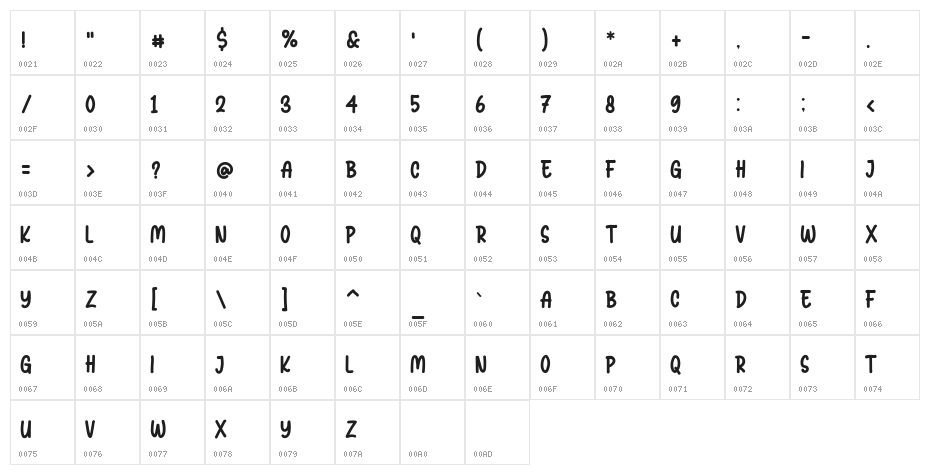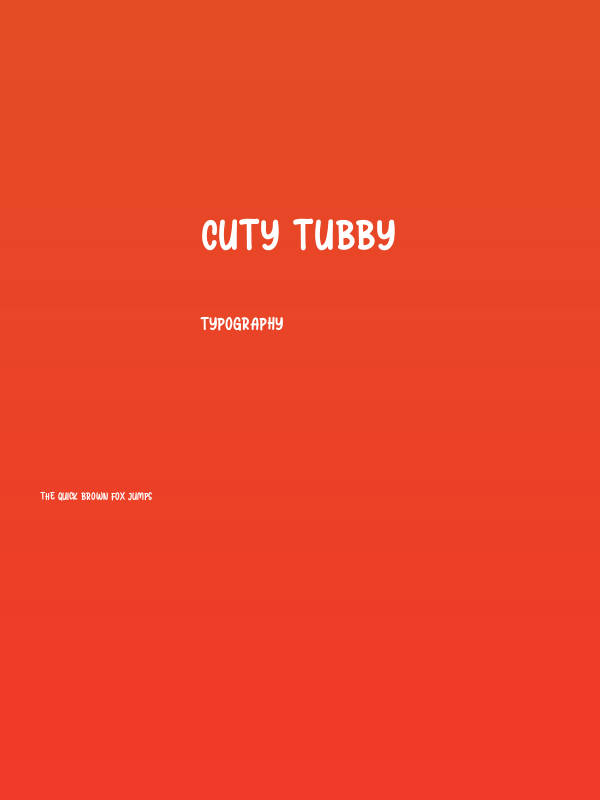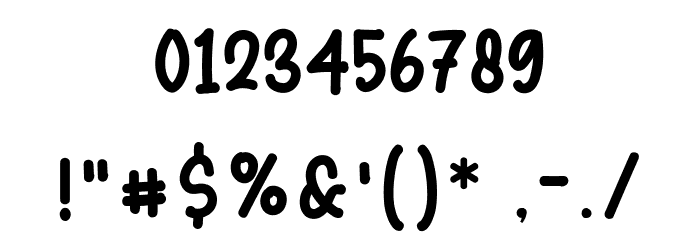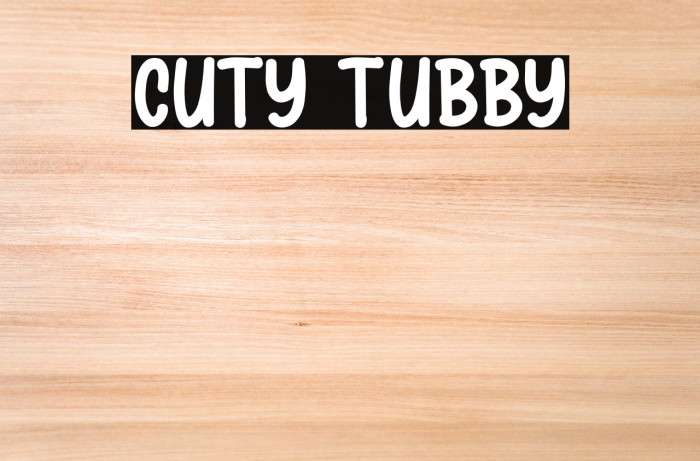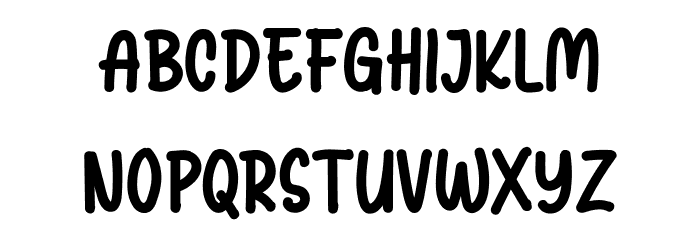
Cuty Tubby Font
Cuty Tubby Description
This playful and rounded font features bold, smooth curves and a friendly appearance. The characters are consistently thick, giving a uniform look across both uppercase and lowercase letters. The font has a whimsical style, with a slightly informal touch that makes it approachable and fun. The numbers and special characters maintain the same playful aesthetic, ensuring coherence throughout. Its rounded edges and consistent stroke width make it highly legible, while the overall style adds a touch of charm and creativity.
| Proposed Projects | Ideal for children's books, playful branding, greeting cards, and casual invitations. |